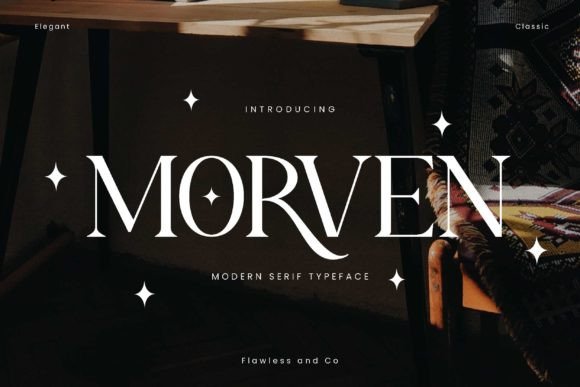
Are you looking for a font that will help your bold letters stand out? Look no further than Morven Font, the perfect blend of modernity and classic elegance. Created by Flawless And Co., Morven is a versatile serif font that will elevate any design project.
Morven Font is perfect for a wide range of design needs, from creating a striking brand identity to crafting eye-catching advertisements. Its clean and simple lines make it easy to read while adding a touch of sophistication to your work.
This font includes a full set of uppercase and lowercase letters, as well as numerals and punctuation marks, giving you all the tools you need to create stunning designs. And with its PUA encoding, accessing all glyphs and swashes has never been easier!